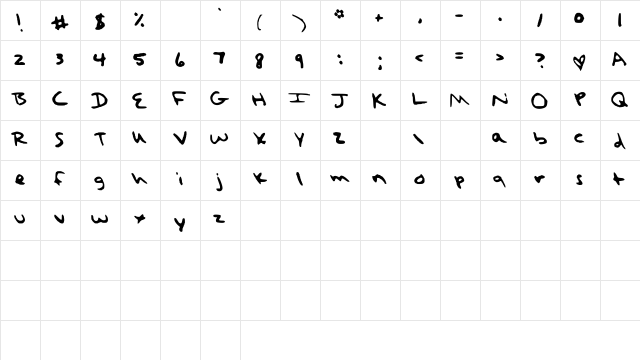
Taylor_Swift_Handwriting_Font Medium
Taylor_Swift_Handwriting_Font flows with the natural rhythm of handwritten lettering, making it ideal for designs that call for warmth and personal expression.
Font Pairing: Combine Taylor_Swift_Handwriting_Font with a simple geometric sans for maximum contrast — the tension between flowing curves and clean structure is a classic typographic pairing.
Pro Tip: Pair Taylor_Swift_Handwriting_Font with a clean sans-serif for supporting text. The contrast between fluid script and geometric structure creates an elegant typographic hierarchy.